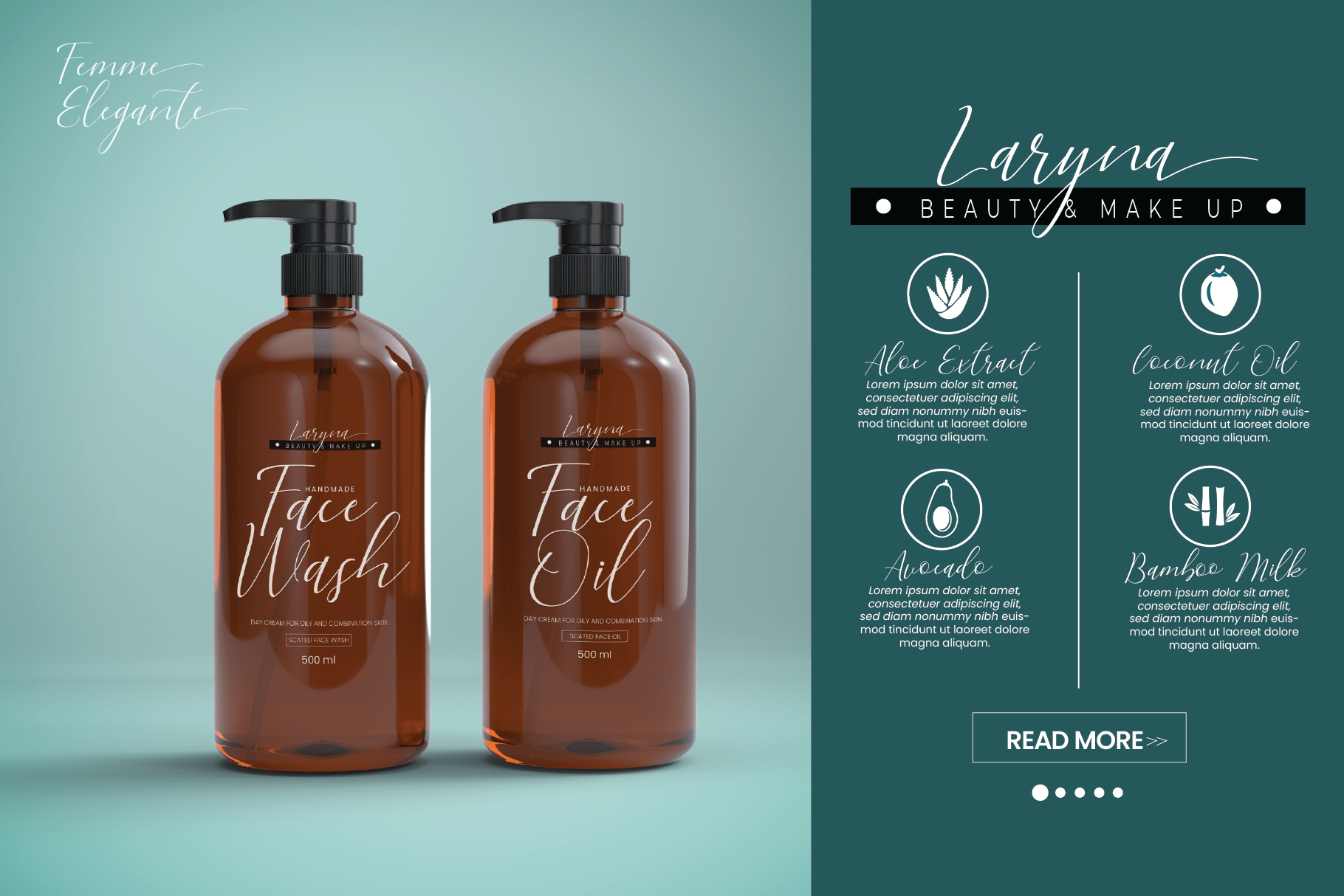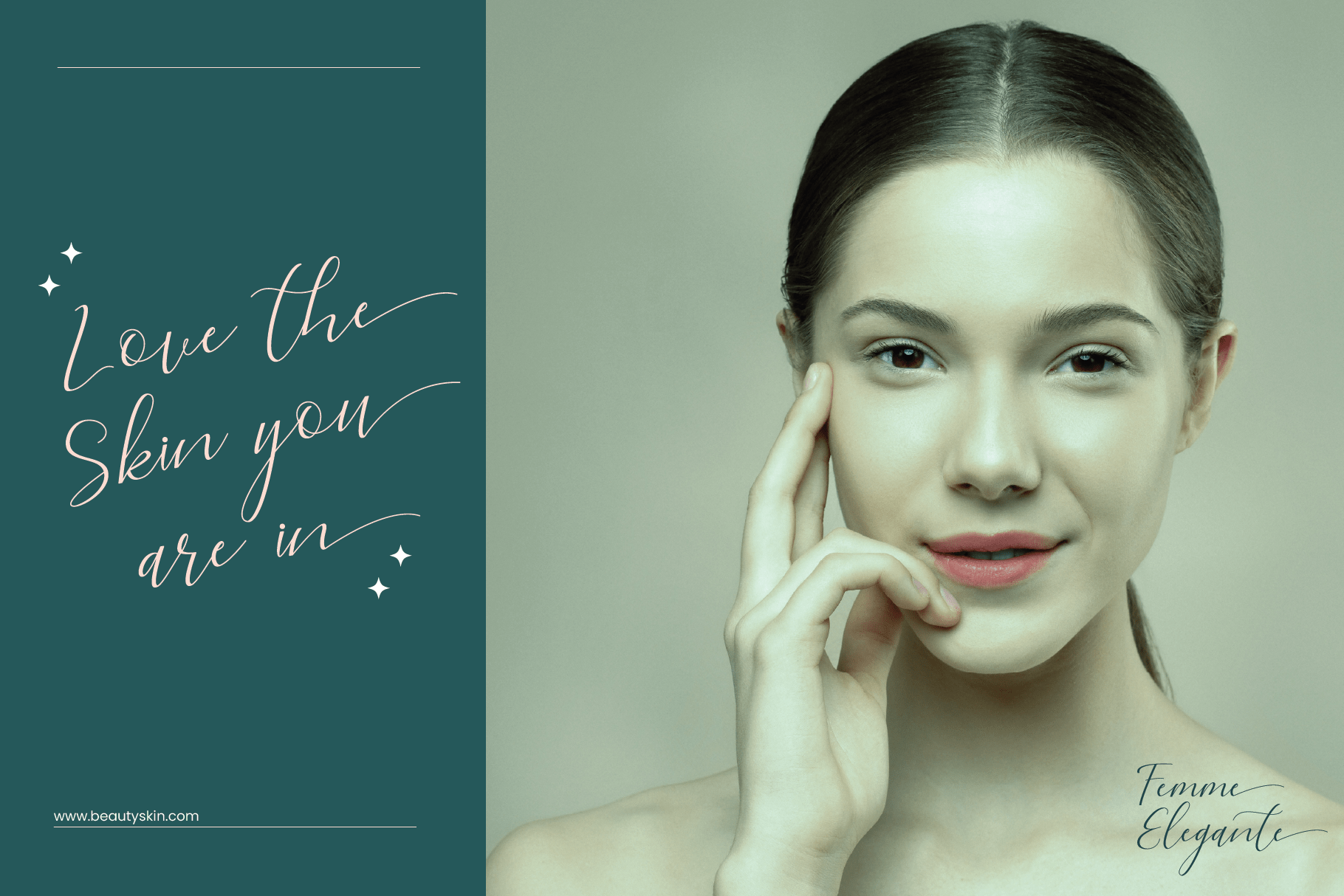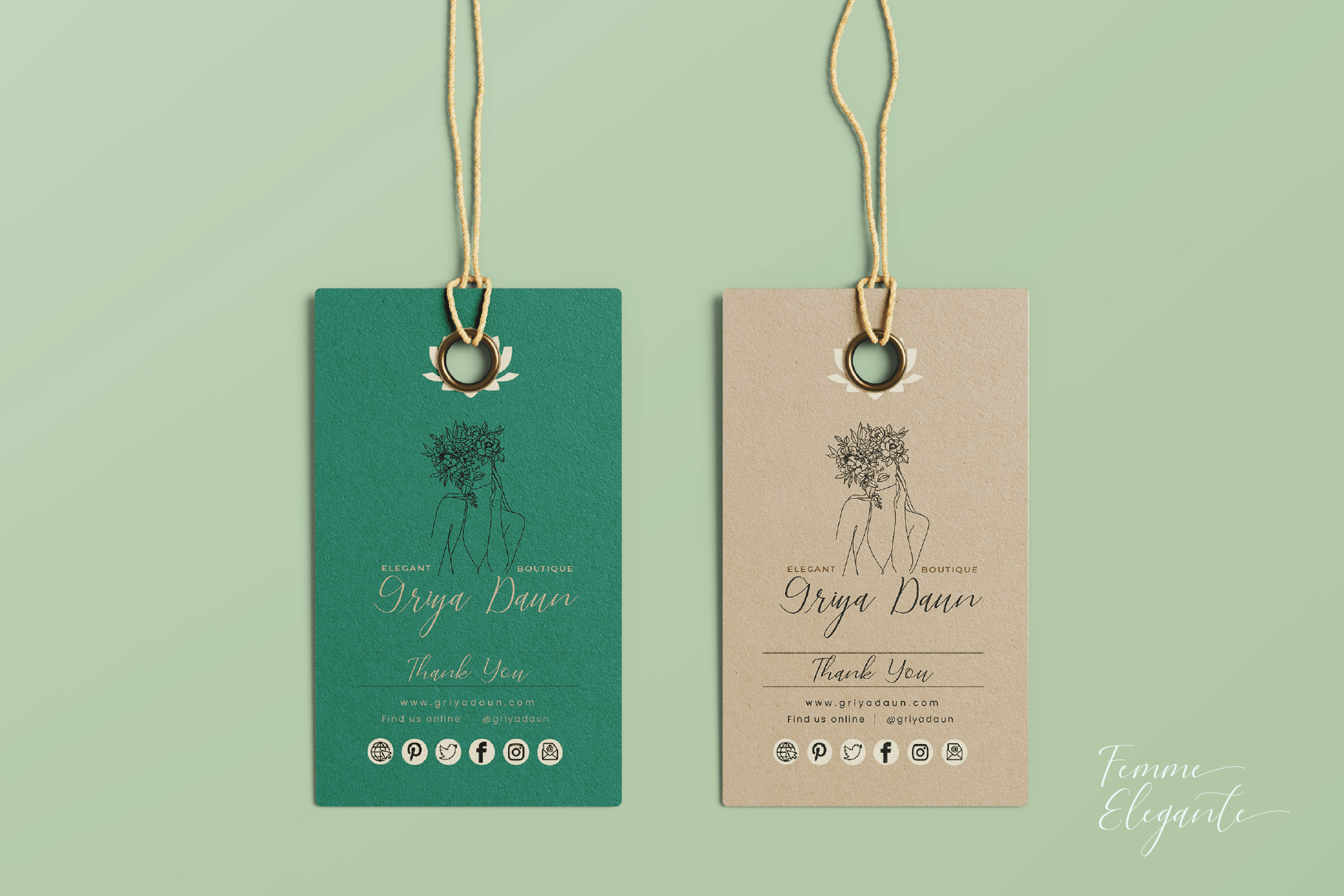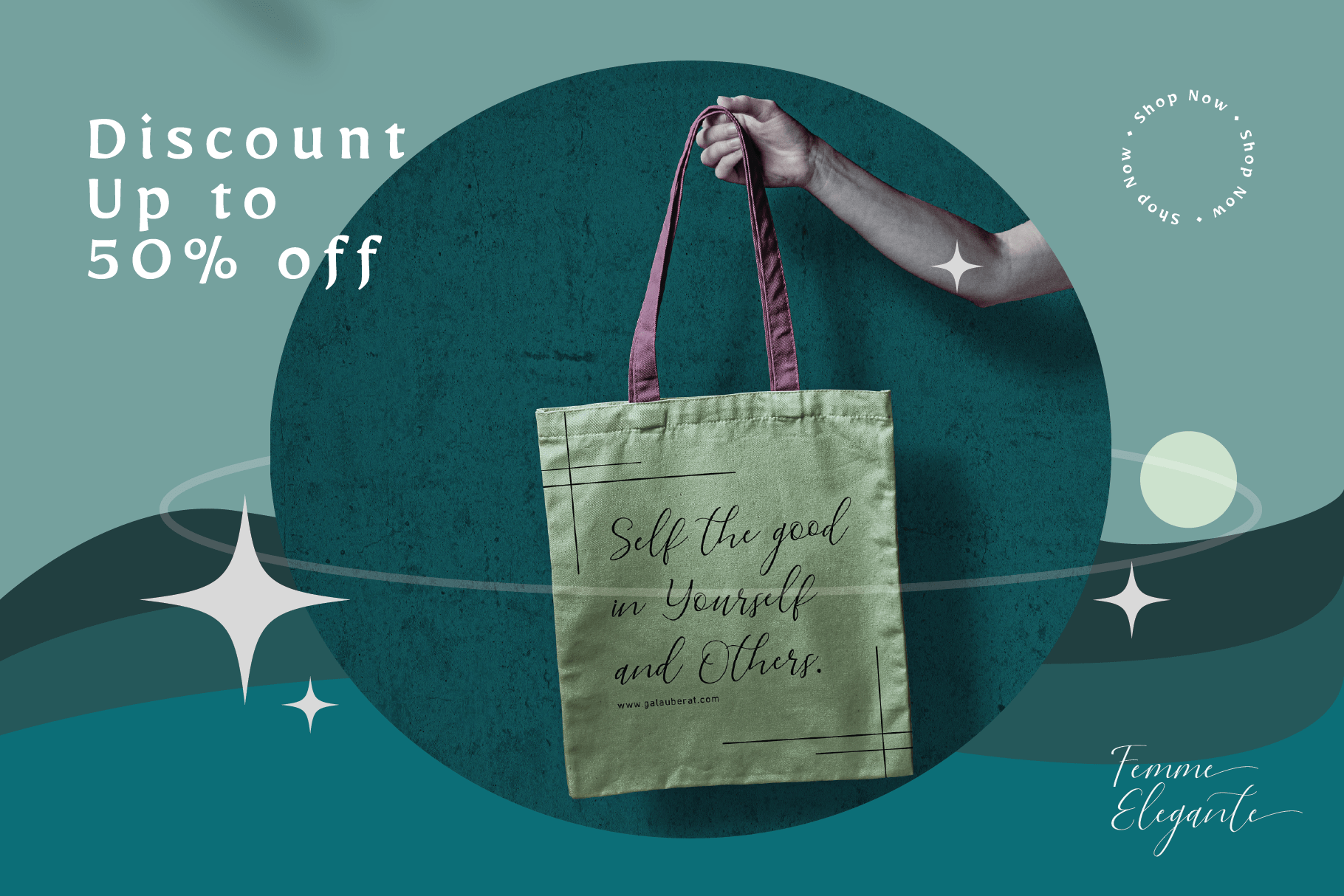
Femme Elegante Font
Femme Elegante Script Font
This is a handwritten font script with a stunning handwritten style, handcrafted from our Studio in Indonesia. Femme Elegante Calligraphy Font is an original handwritten script typeface with a unique look. It has an amazing character set, perfectly managed with good spacing and kerning. The style of this font theme is elegant, sophisticated & natural style.
Femme Elegante Font has a stunning calligraphic character style. The font will be great for any project (with an extended license) including: branding, logos, stationery, business cards, signage, flyers, brochures, etc. Almost any industry will suit this typeface: weddings, events, real estate, architects, florists, gardening, makeup artists, travel, hotels, musicians etc.